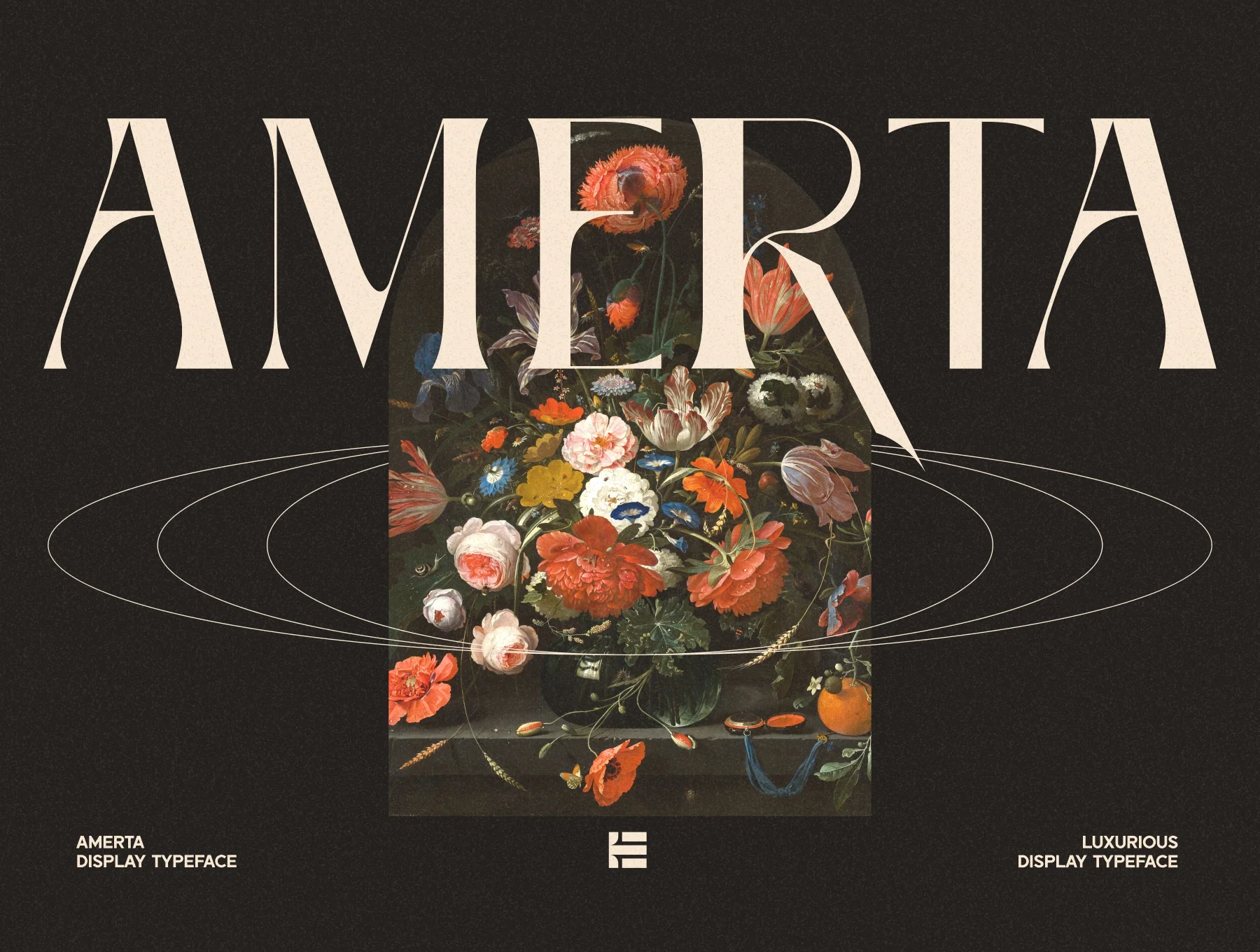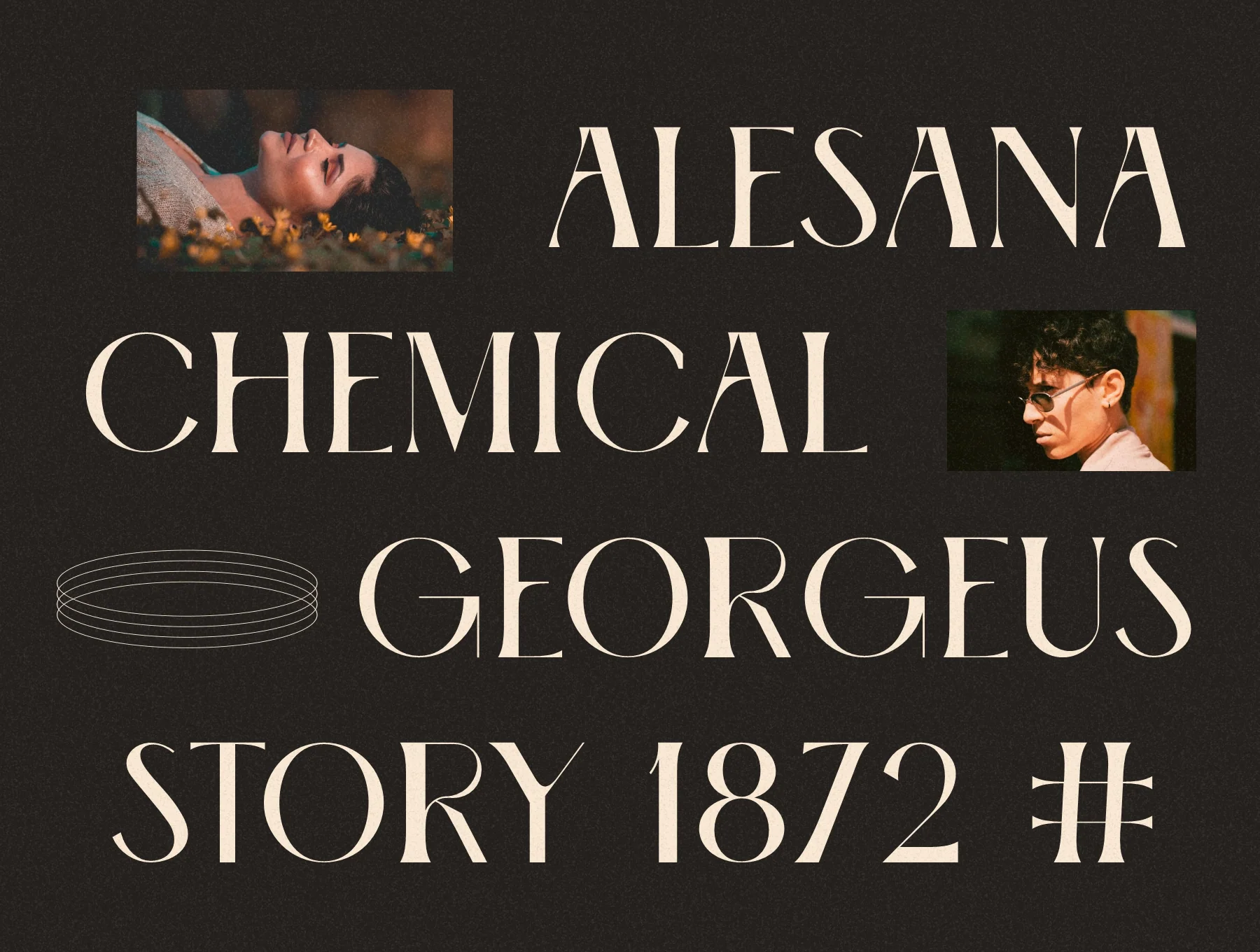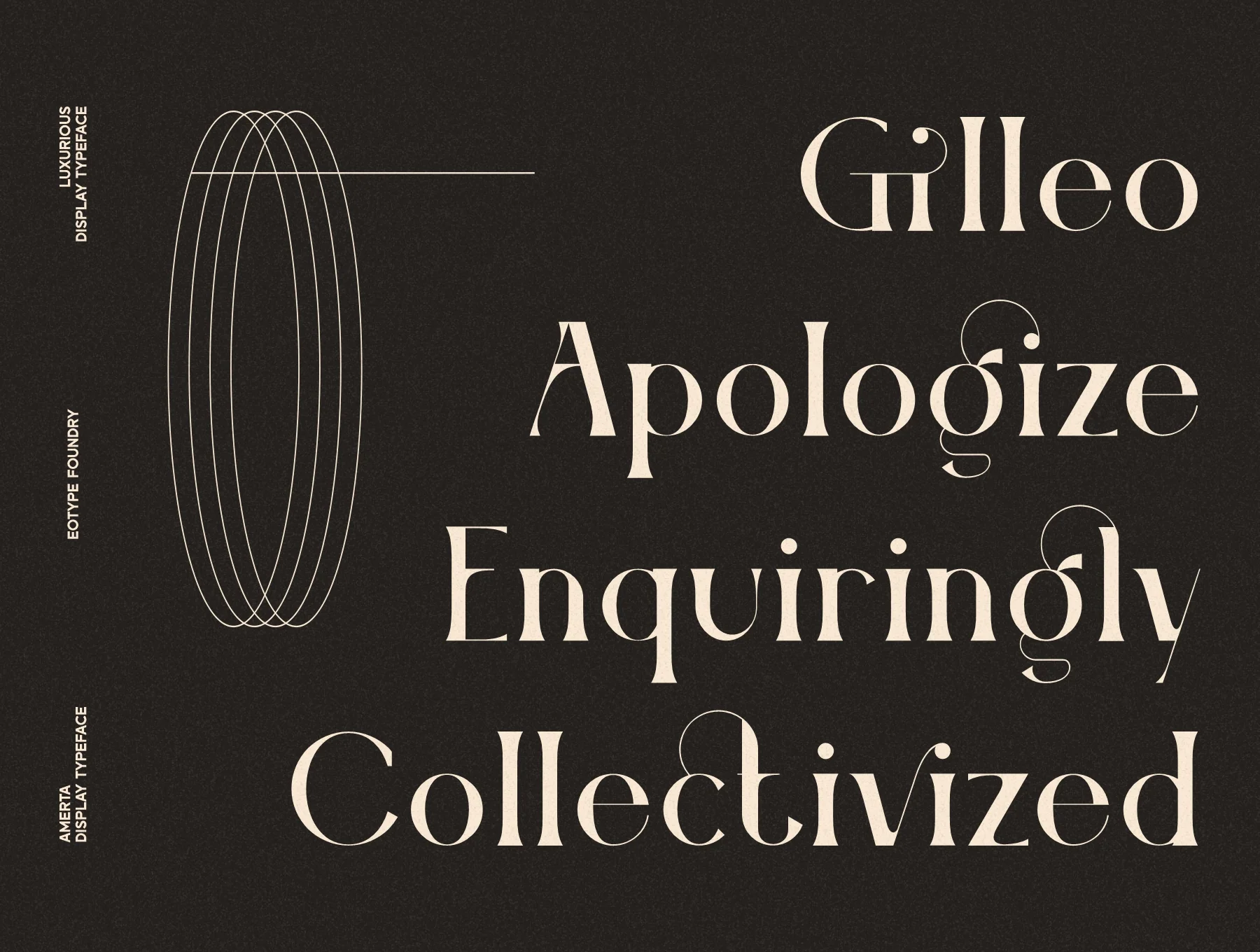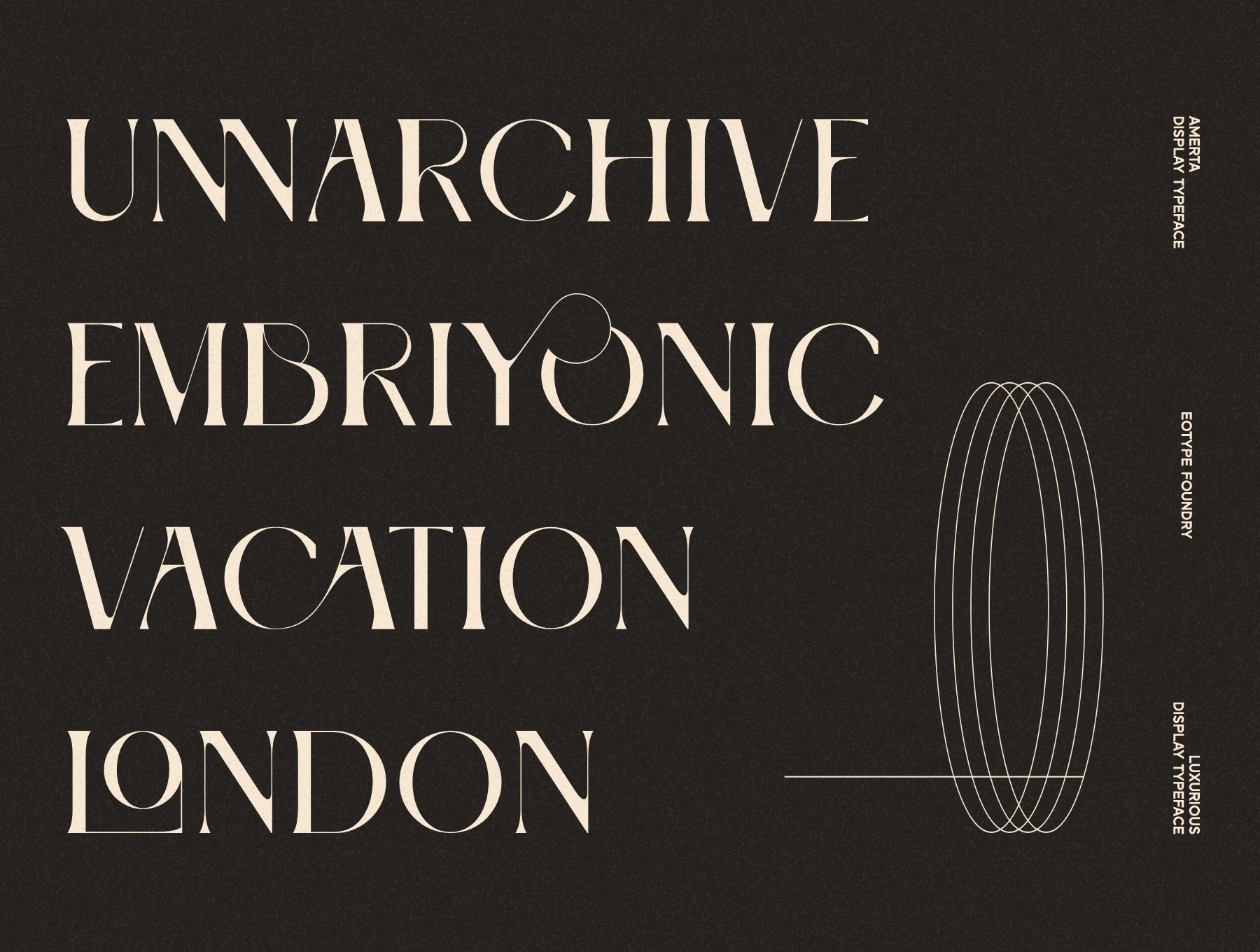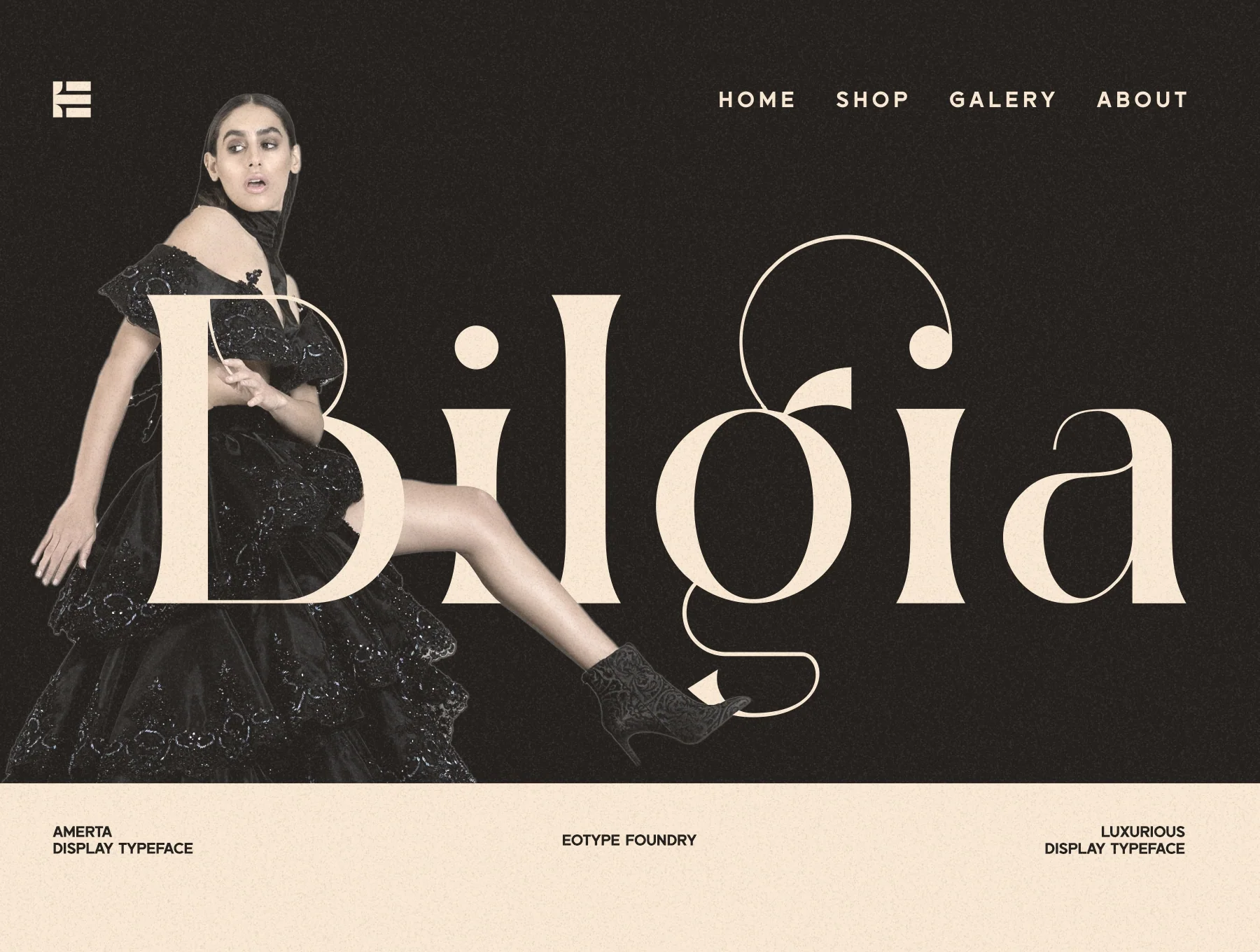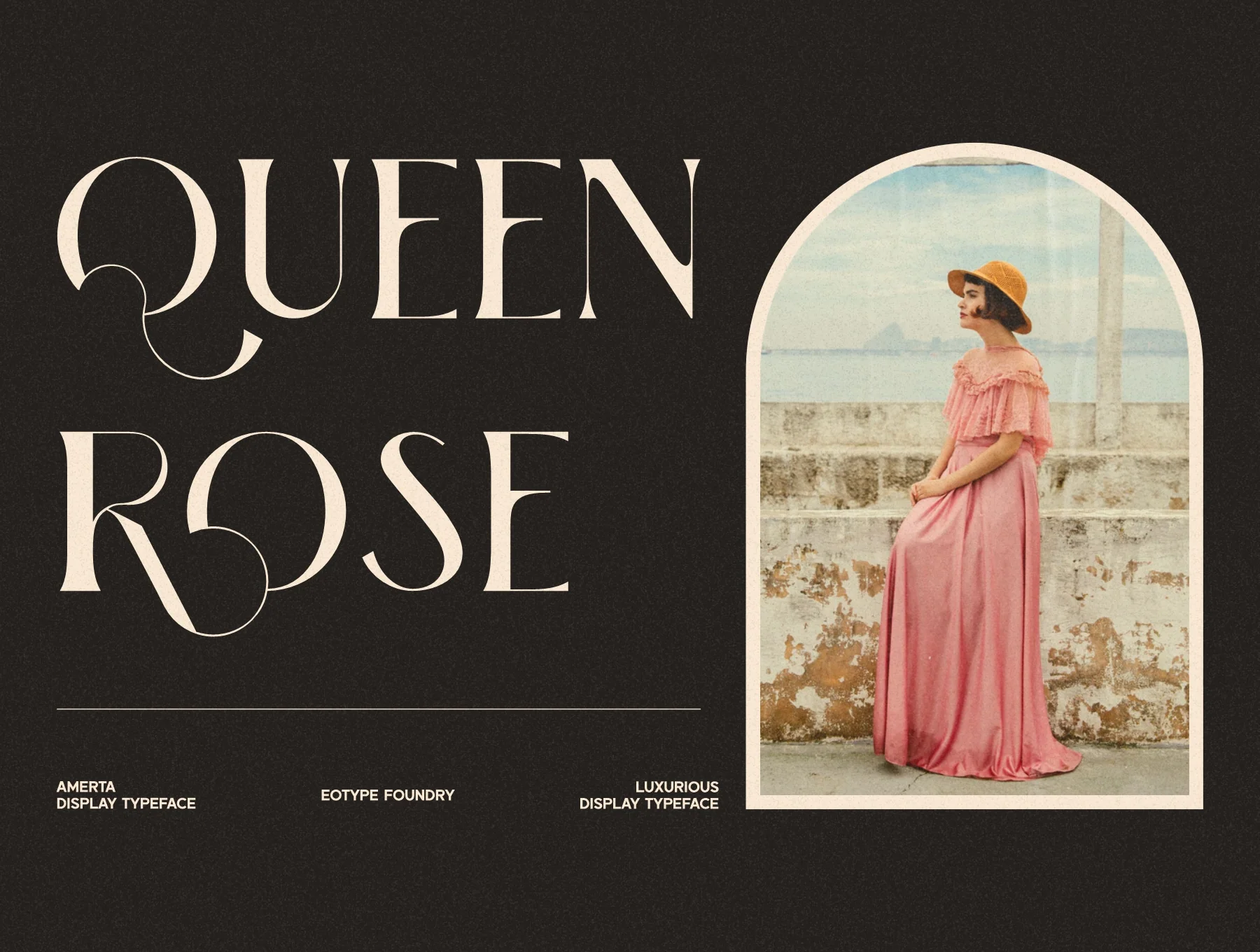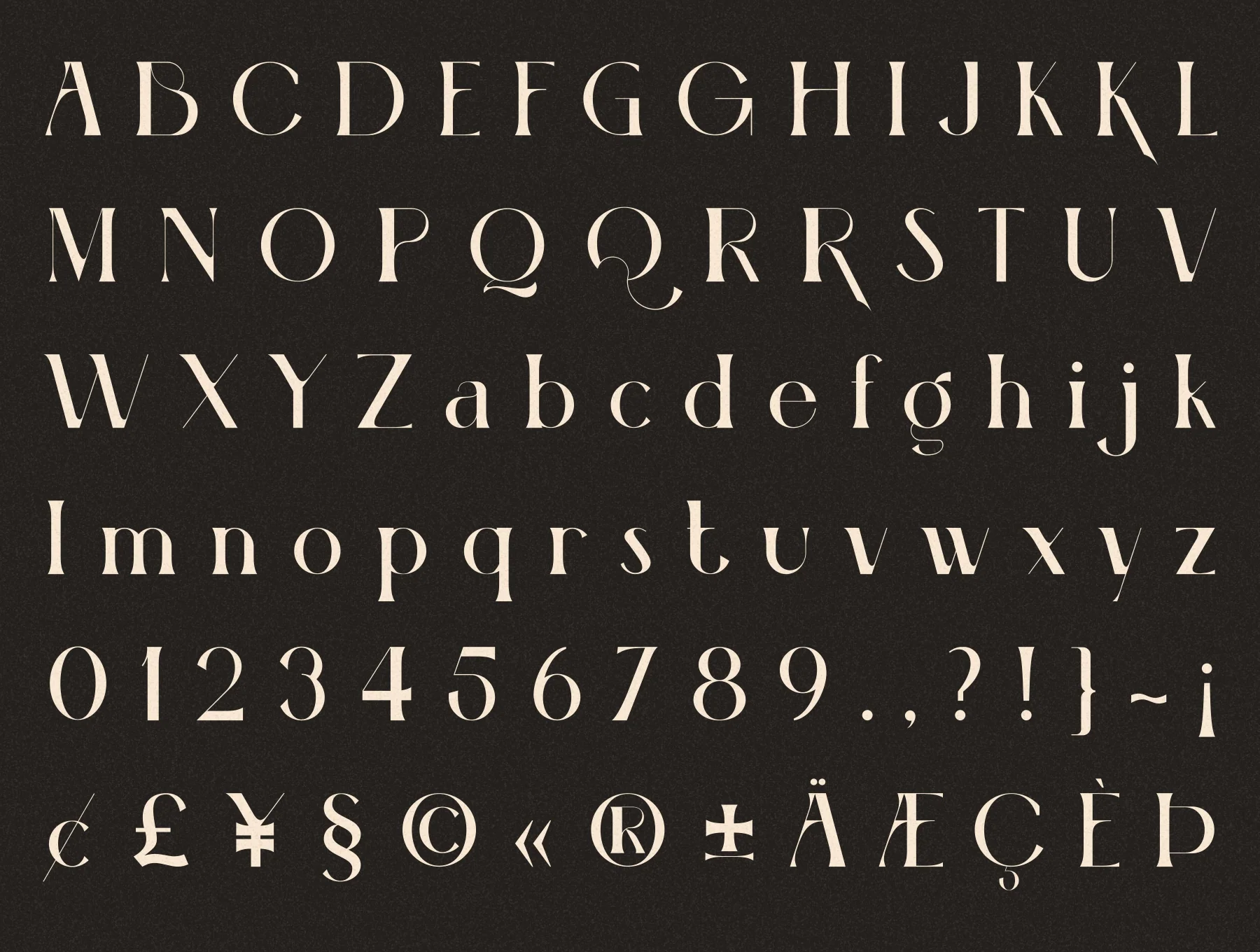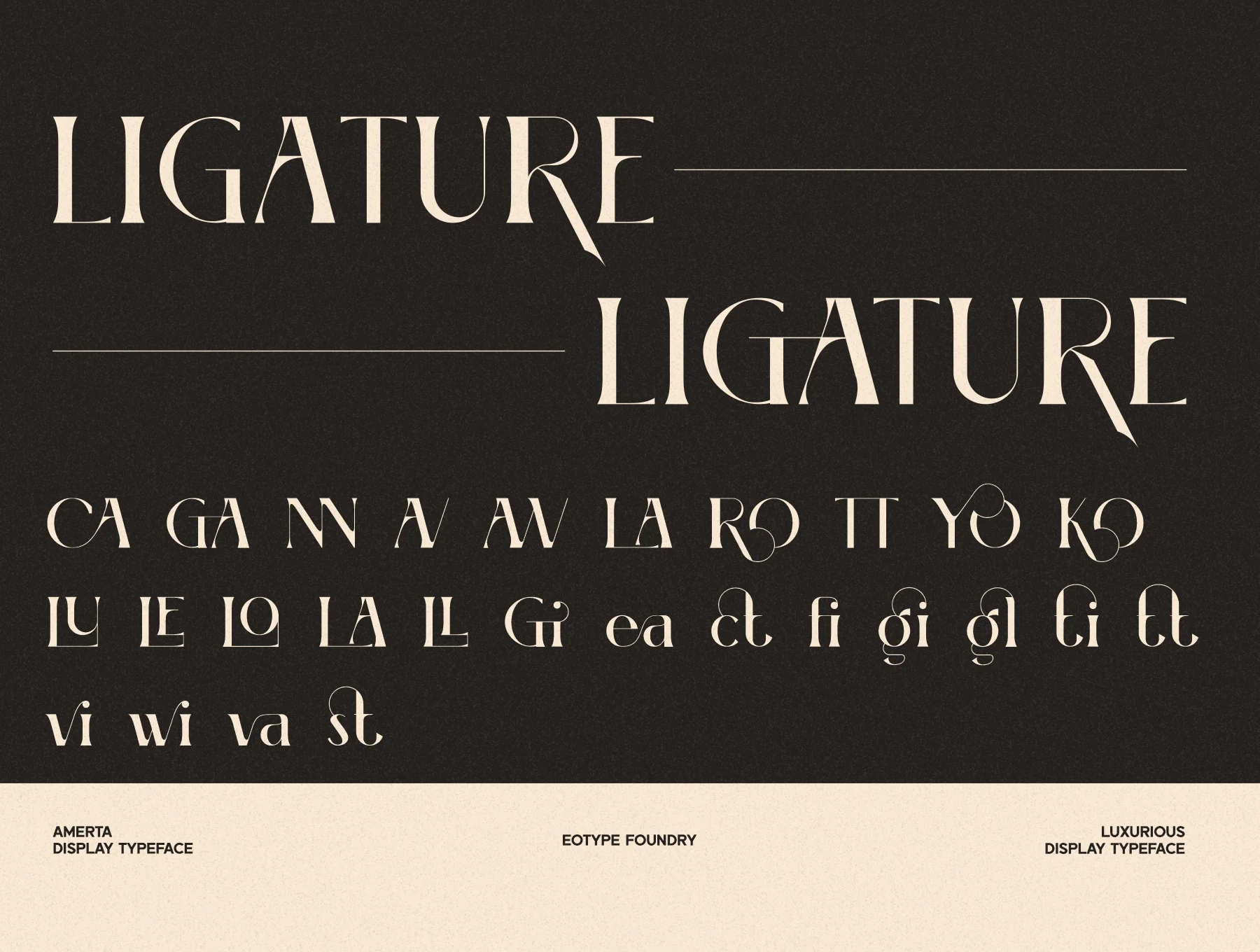
Amerta - Display Font
Amerta timeless serif typeface
Basic character
Normal
Digits and punctuation marks
Style variants and joined forms
Amerta is a distinctive serif typeface by Eotype Studio, blending timeless character with versatile appeal. It includes stylistic alternates, ligatures, and multilingual support, making it ideal for striking logos, refined magazine designs, and graphics that need a strong presence with graceful elegance.